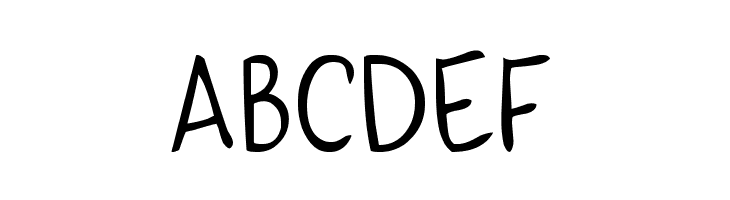
Sharpe PERSONAL Black Font
- Font: Sharpe PERSONAL Black
- Weight: Black
- No. of Characters:: 364
A bold, playful handwritten font with a dynamic and informal style.